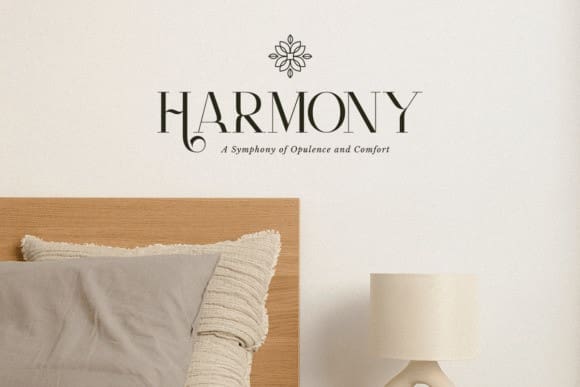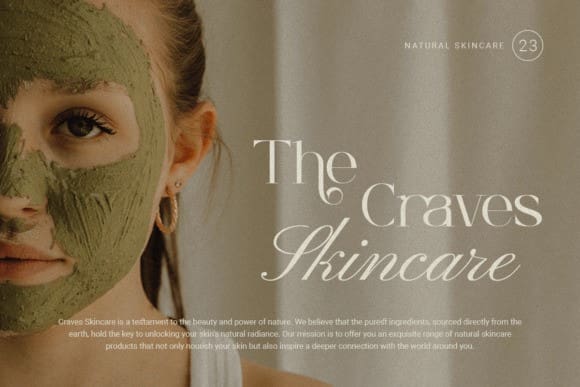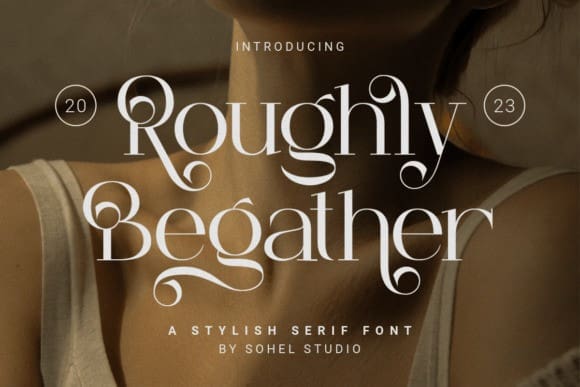
Roughly Begather Font
Roughly Begather Font, is a Modern elegant serif typeface with Unique alternative, multilingual support with perfect kerning.
This typeface is perfect for an elegant & luxury logo, classy editorial design, women’s magazine, fashion brand, cosmetic brand, fashion promotion,
modern advertising design, invitation cards, art quotes, home decoration, book/cover titles, special events, Tote bags, T-shirts, Advertising, and much more.